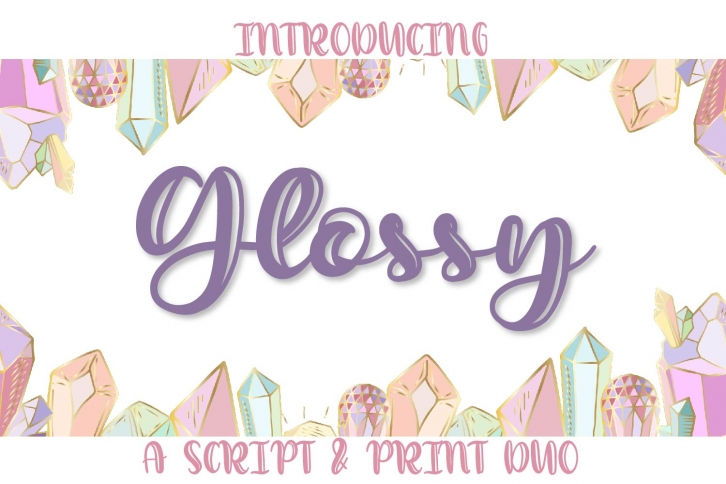
Glossy Duo - A Script & Print Highlight Duo FONT Download
Glossy Duo - A Script & Print Highlight Duo Font Download
Glossy Duo is a beautiful font that was designed by Justina Tracy. It's a great choice for designers and creatives who need such a font. It was released on December 5, 2018 and the file size is 13.66 MB. Glossy Duo may give a more youthful, expressive and casual look to your project. It is a very beautiful, refined, elegant, and high-quality font.